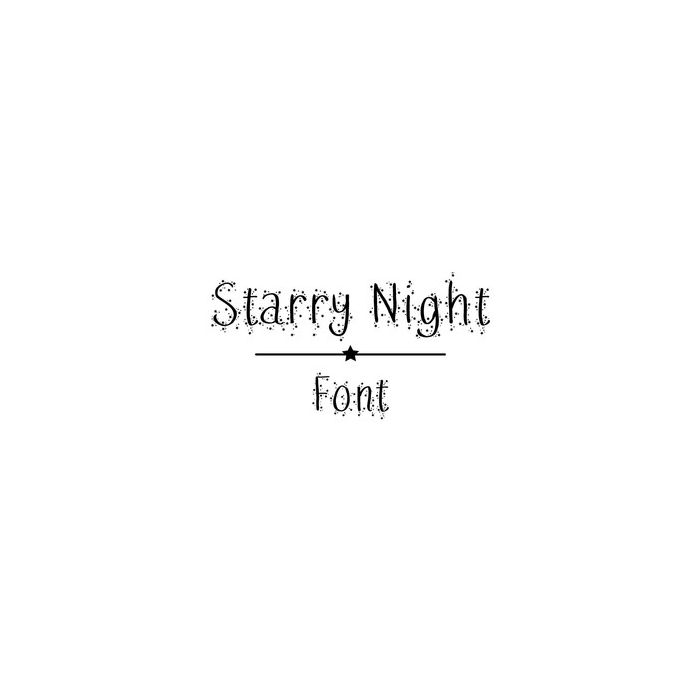
Starry Night Font. Handwritten font, includes upper and lower case letters, numbers and glyphs. For more design ideas, coordinating designs & products and inspiration, please visit my blog http://www.sarahhurleyblog.com